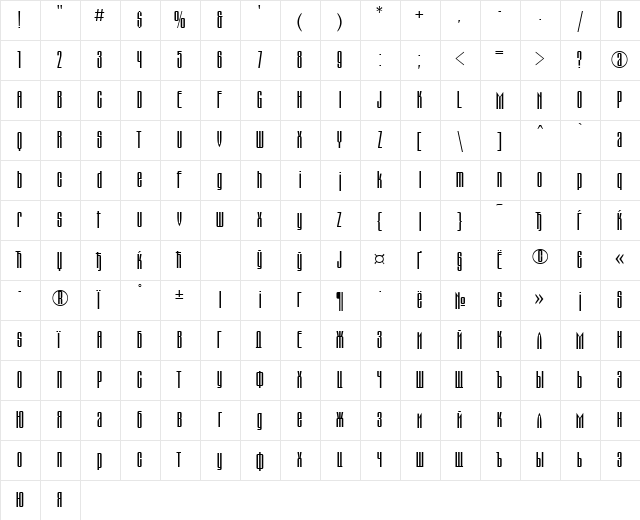
MontblancCTT Regular
Design Context for MontblancCTT Typeface
MontblancCTT is a composed and adaptable typeface that performs quietly and consistently across a wide range of design contexts.